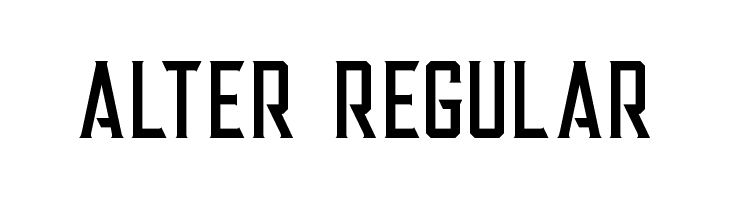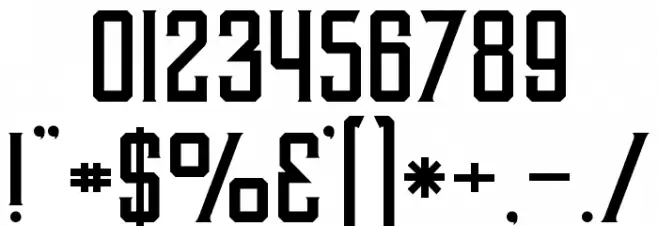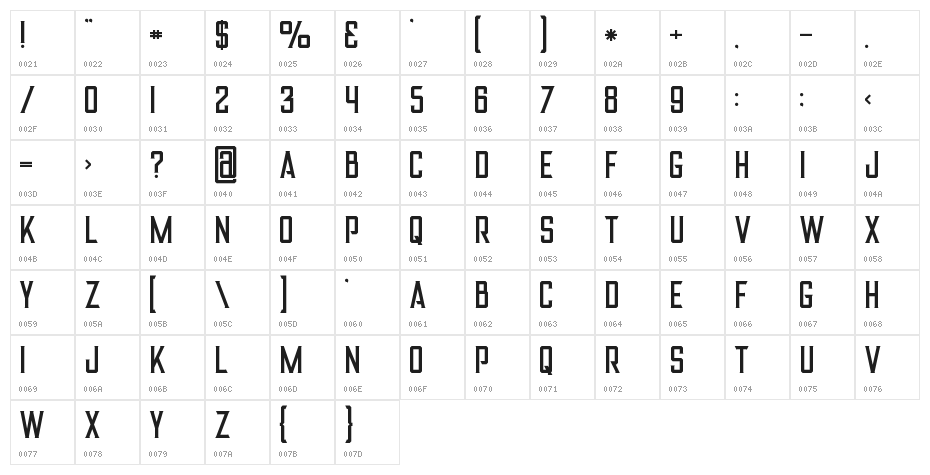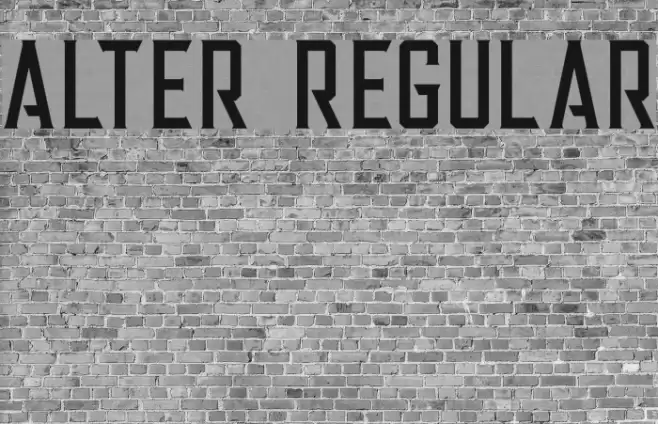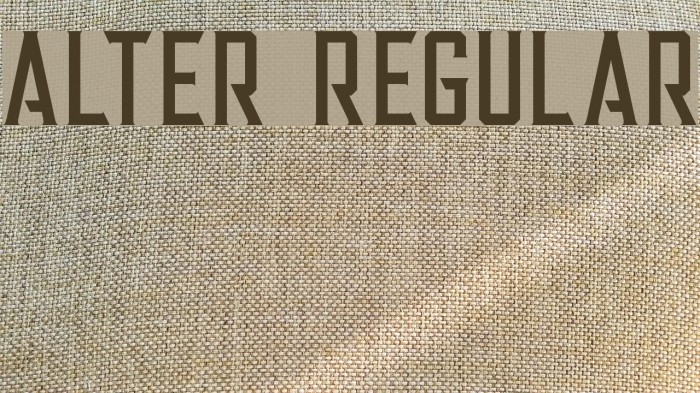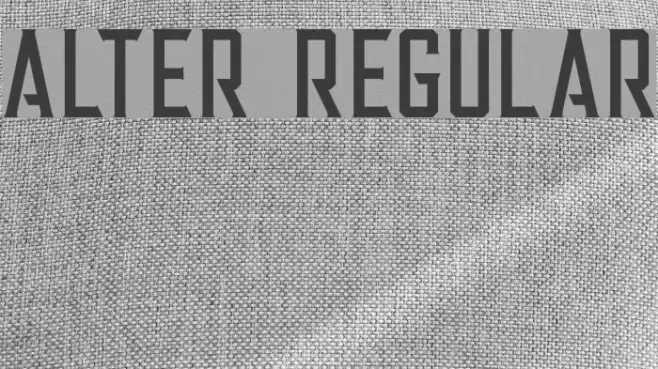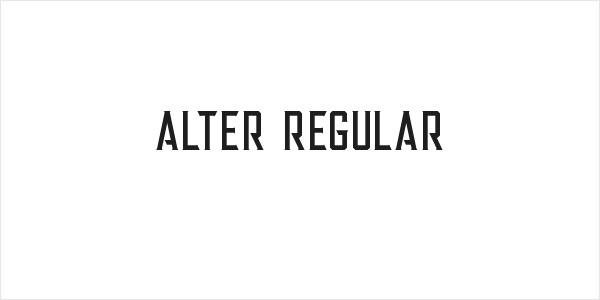
Alter Regular Font
Alter Regular Description
This font features a bold and angular design with a distinct geometric structure. The characters are tall and narrow, giving a condensed appearance that emphasizes verticality. The sharp edges and straight lines create a modern and assertive look, suitable for making a strong visual impact. The uppercase and lowercase letters maintain a consistent style, with uniform stroke widths that contribute to a cohesive and balanced appearance. The numerals and special characters are designed to match the overall aesthetic, ensuring versatility across various applications.
| Proposed Projects | Ideal for branding, posters, headlines, and any project requiring a strong, modern aesthetic. |